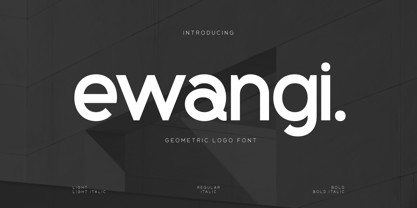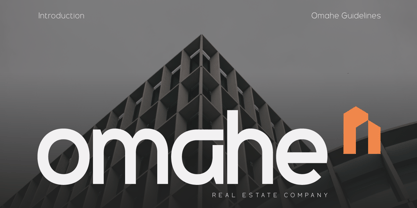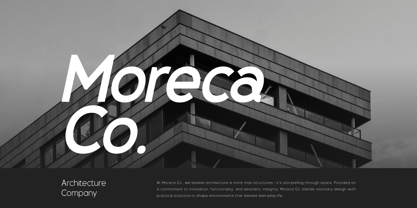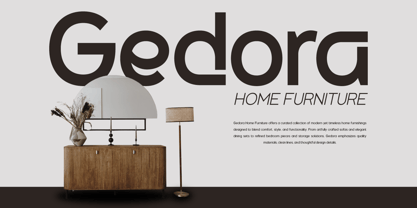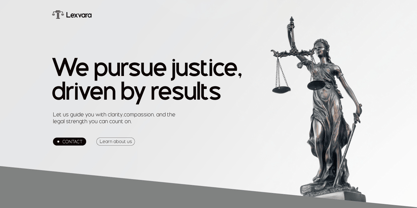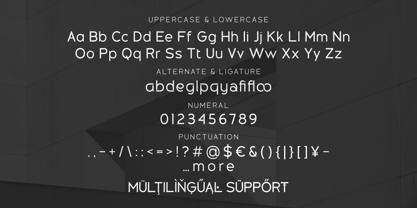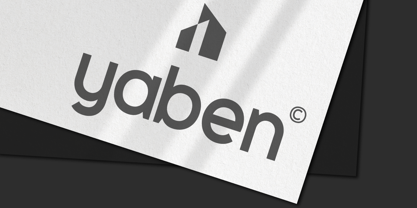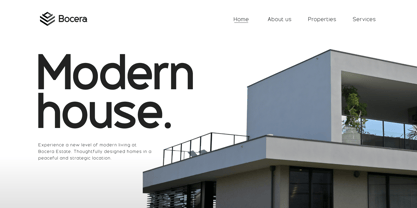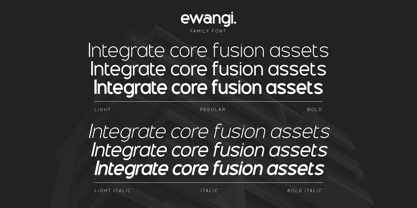
Ewangi
by Twinletter
The Ewangi Font Family was designed by Rozikan and published by Twinletter. Ewangi contains 6 styles and family package options. More about this family
Ewangi is a clean and elegant corporate font designed to communicate professionalism, clarity, and modern sophistication. Featuring balanced proportions, smooth curves, and sharp edges, Ewangi is ideal for branding, business presentations, technology startups, corporate websites, and editorial layouts.
This font brings a refined sense of structure and readability, making it perfect for everything from logos and headlines to body text in professional documents. Ewangi blends minimalist aesthetics with a strong presence—ensuring your message is clear, confident, and visually polished.
If you're building a brand that values trust, innovation, and style, Ewangi provides the typographic foundation to express it effectively.